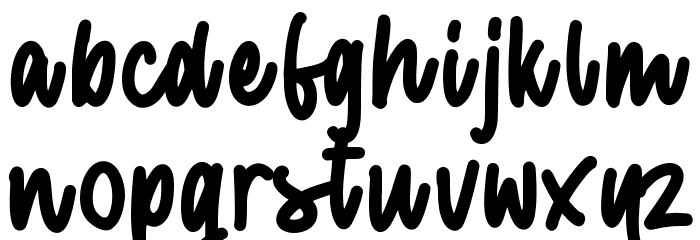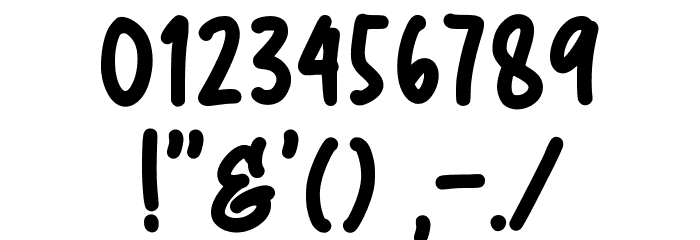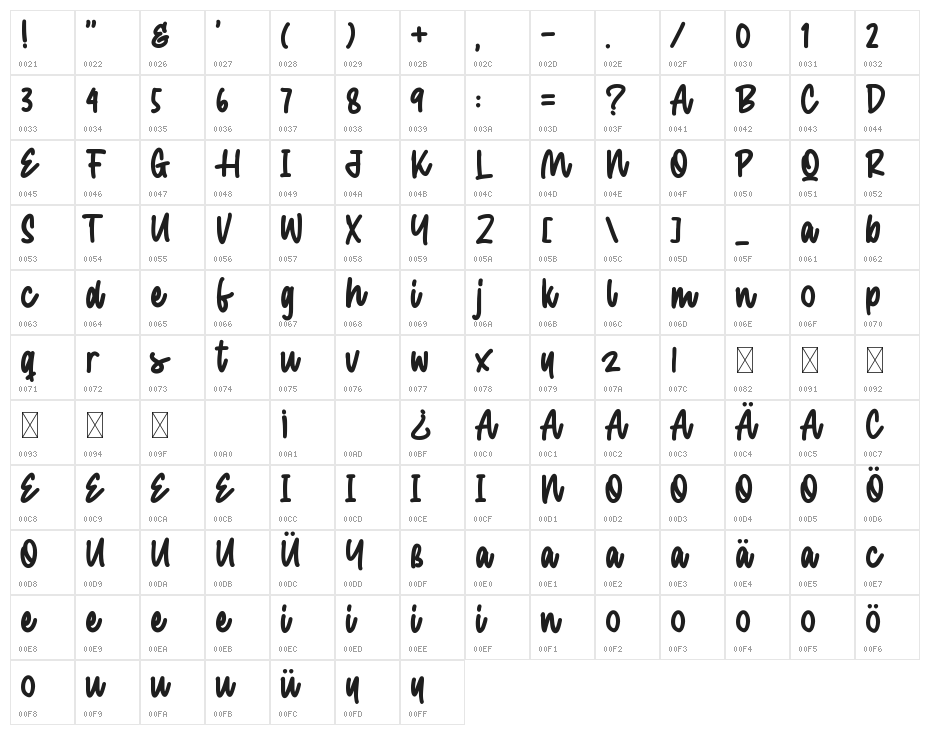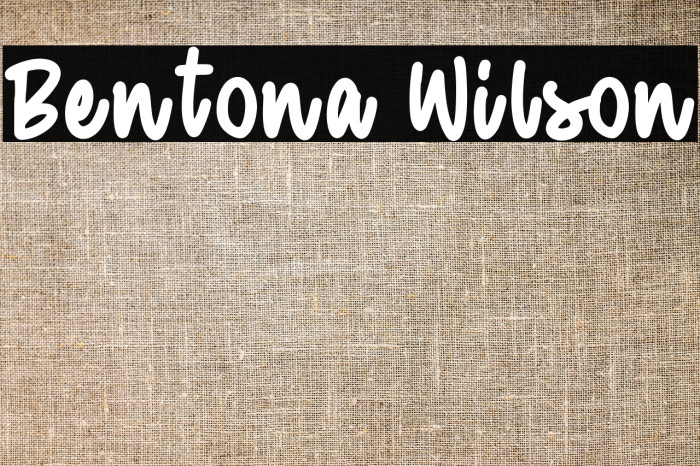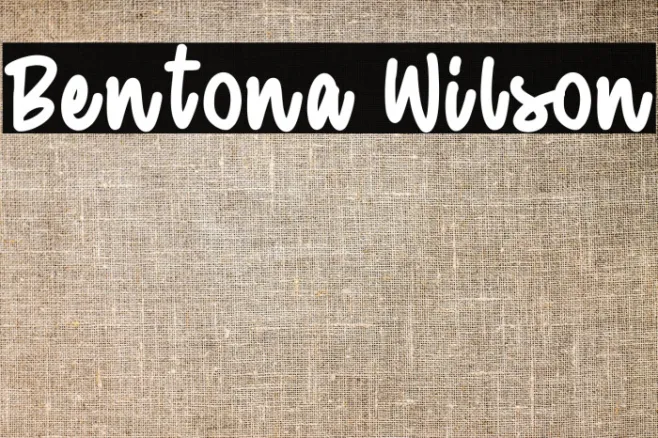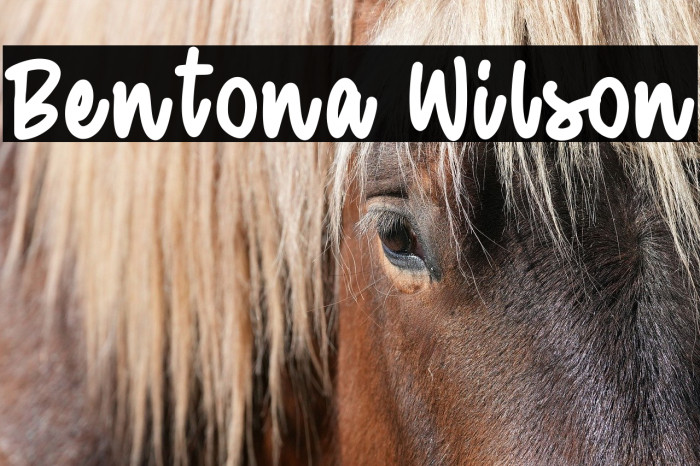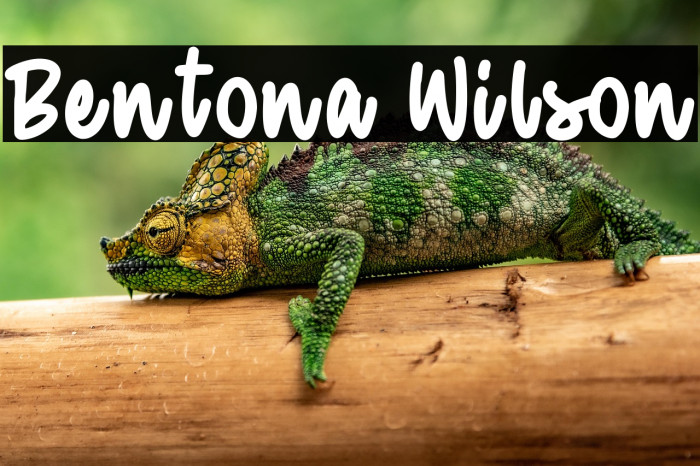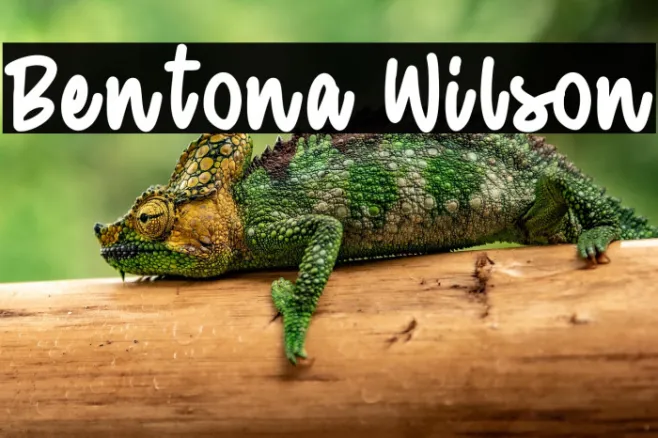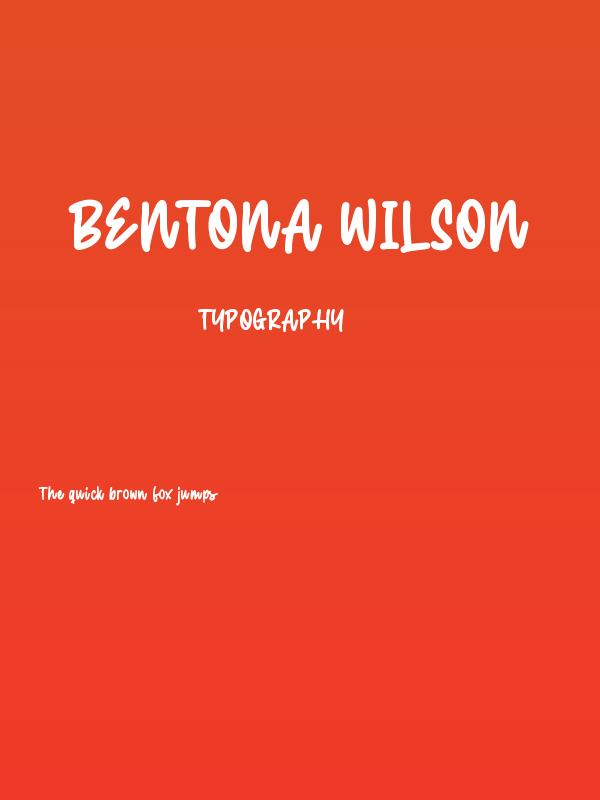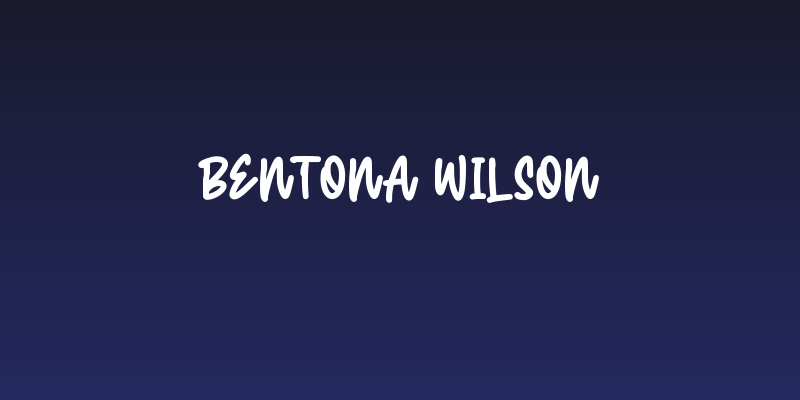
Bentona Wilson Font
This font features a bold and playful handwritten style, characterized by its thick strokes and rounded edges. The uppercase letters are slightly larger and more pronounced, while the lowercase letters maintain a consistent flow and rhythm. The numbers are bold and clear, making them easily readable. Special characters are designed with the same playful and bold aesthetic, ensuring consistency across all glyphs. The overall appearance is casual yet impactful, making it suitable for projects that require a personal touch.
A bold, playful handwritten font with thick strokes and rounded edges.
- Proposed Projects: Ideal for greeting cards, invitations, playful branding, and social media graphics.
- Overall Style: Playful, Casual
- Use Case: Headlines, Logos, Social Media